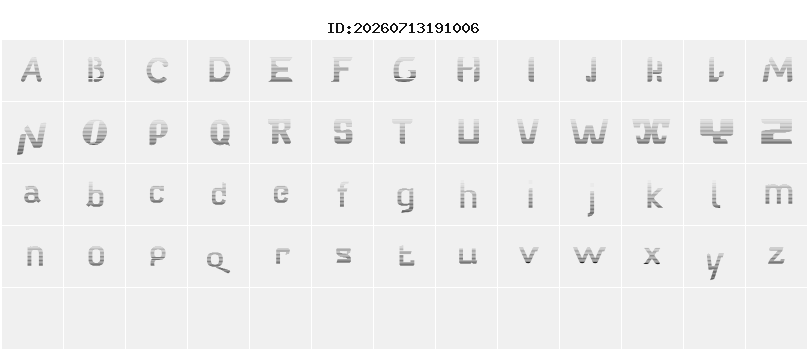
About BabelfishZebral.ttf
BabelfishZebral.ttf is a modern, elegant sans-serif font designed for ultimate readability and visual harmony. Perfect for branding, headlines, web design, and print materials.